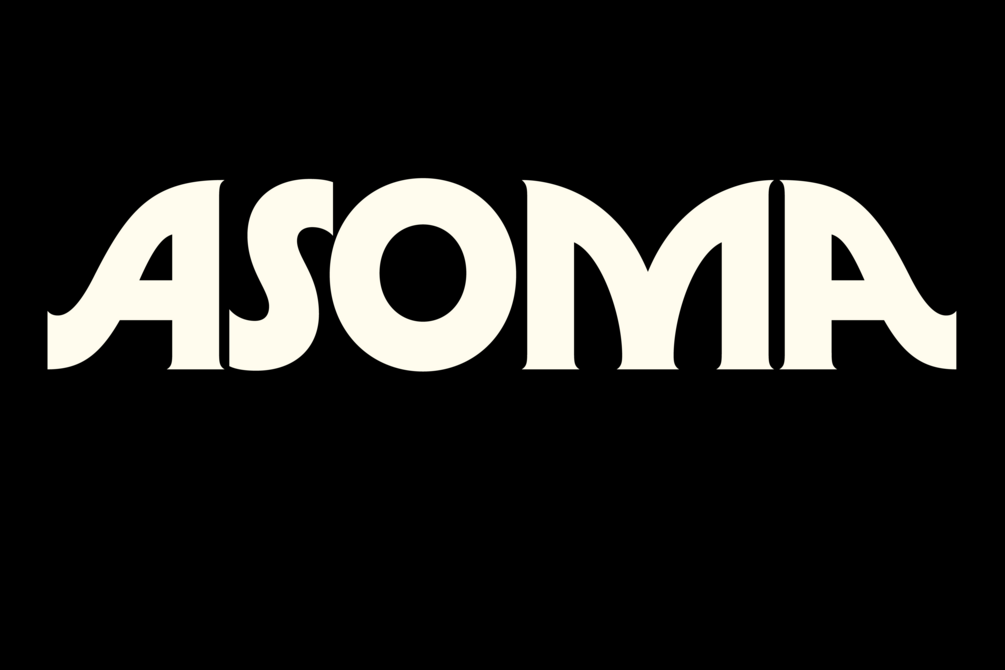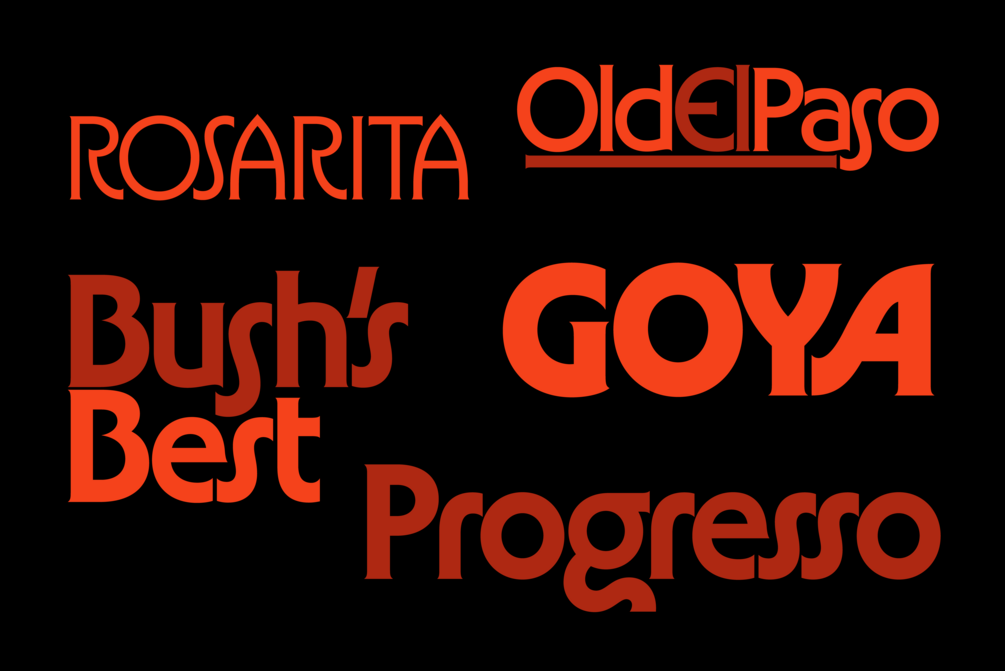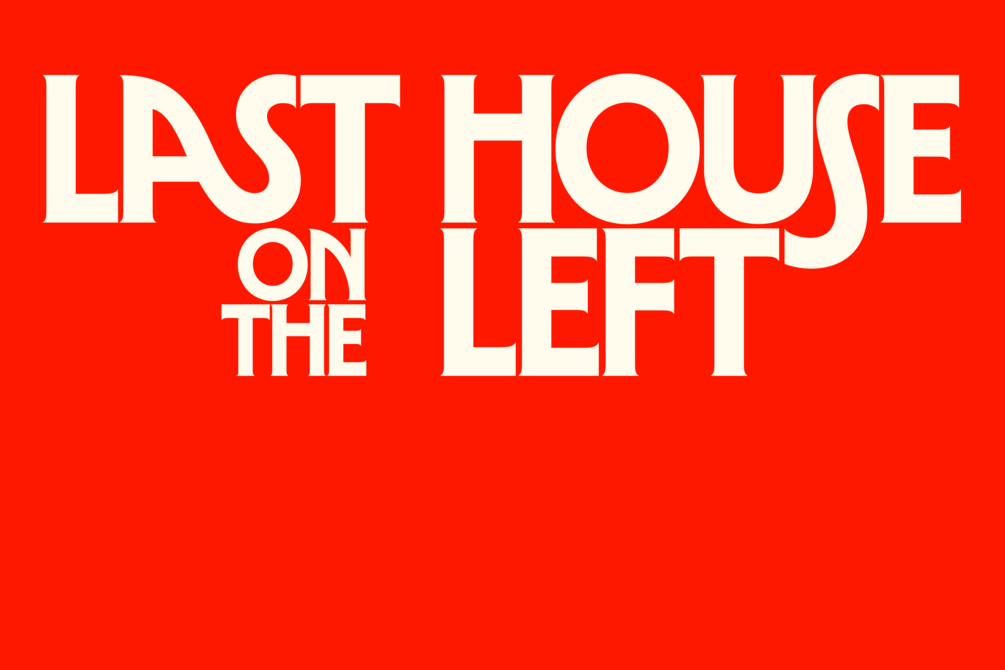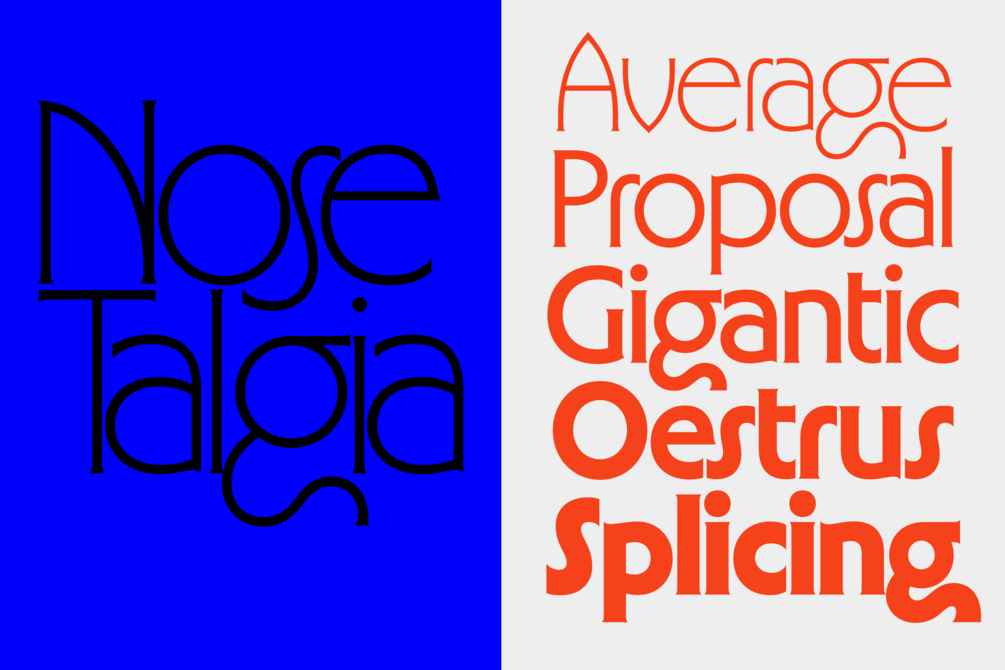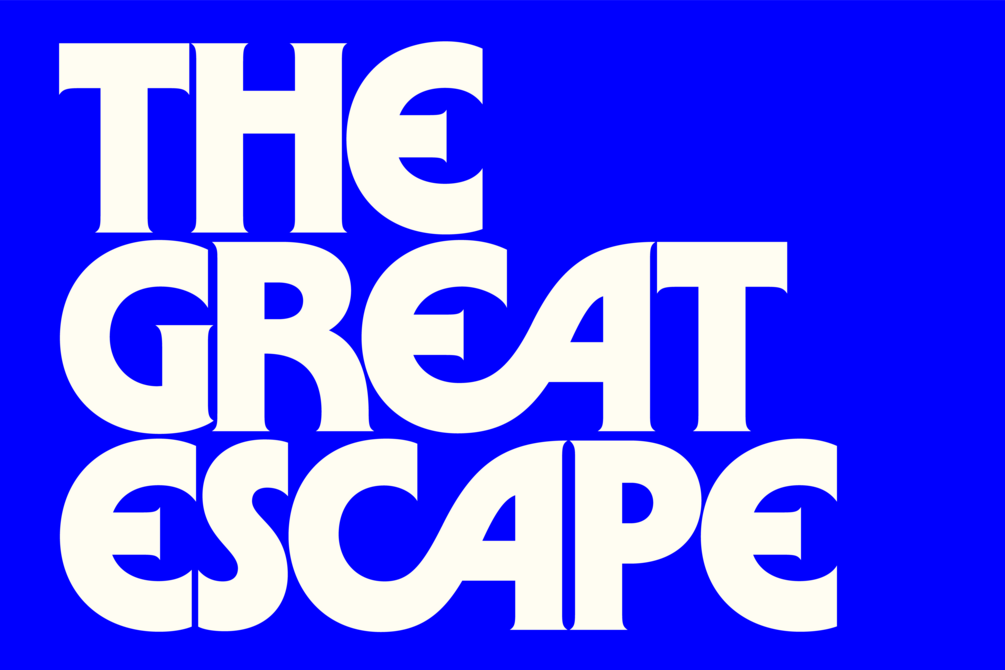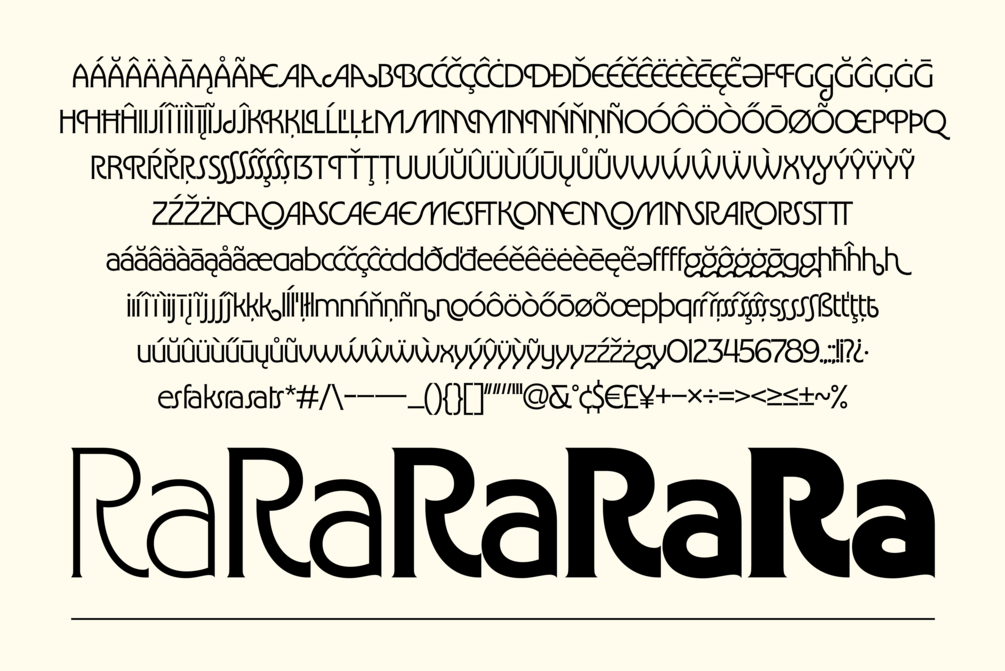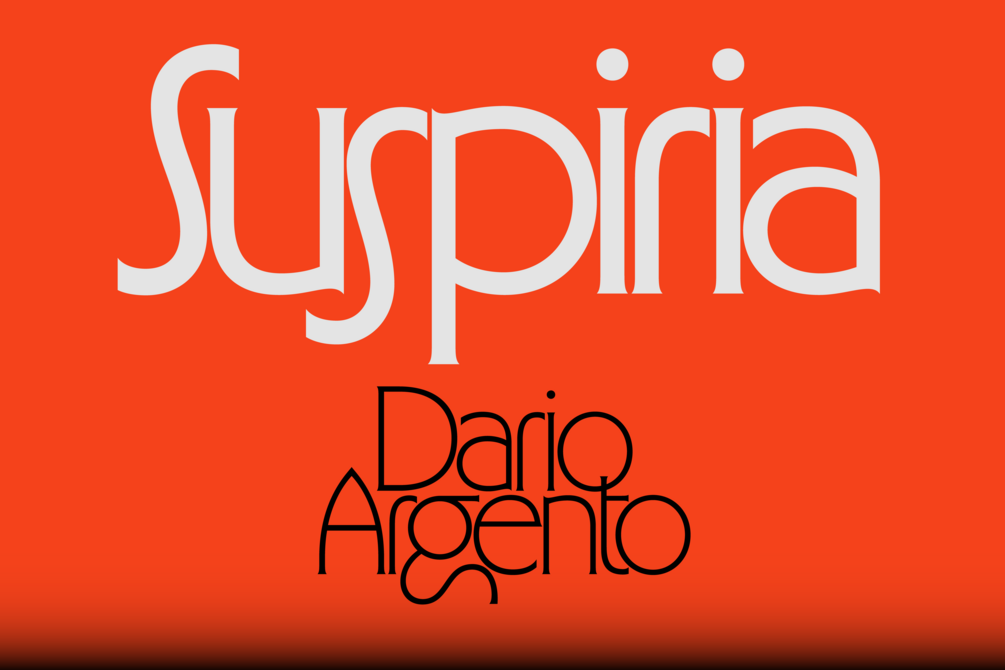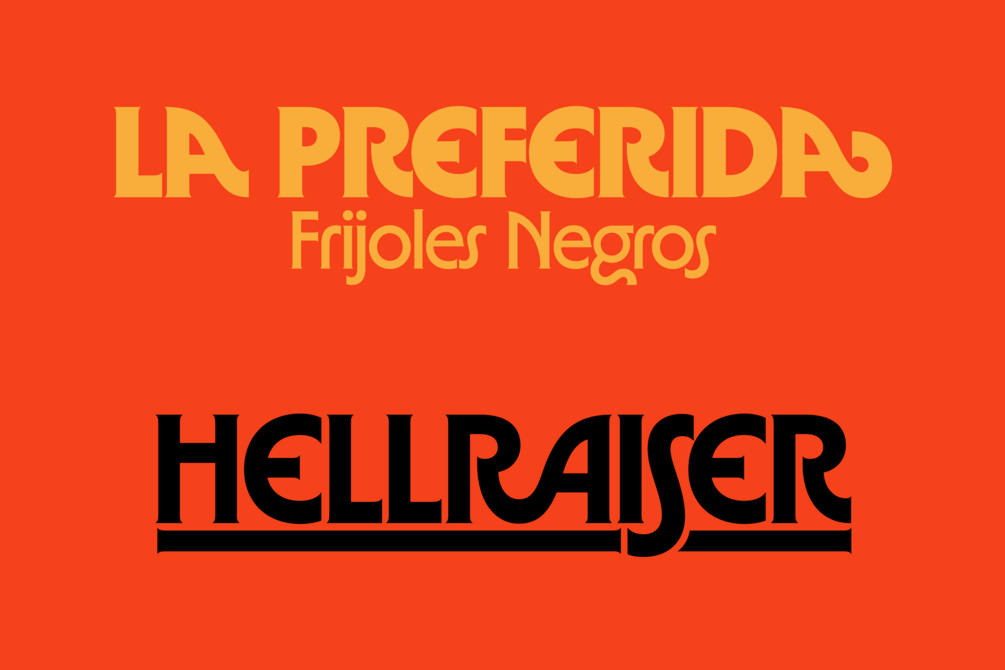
Asoma
Asoma aims to revive the sense of wonder and mystery of 1970s monoweight typefaces such as ITC Busorama, ITC Serif Gothic, and Marvin. Loosely inspired by its predecessors, Asoma riffs on aesthetics of the past, embedding new shapes and ideas with an offbeat sense of nostalgia. A plethora of ligatures gives you the option to heavily customize headlines, titles and logotypes. Additionally, Asoma includes a full upper and lowercase character set, lining figures, math characters, punctuation, 5 distinct weights and support for Western European, Central European, South Eastern European and South American scripts.
Short for asomatic, Asoma speaks with a voice that is somewhat otherworldly, a step away from the physical realm and existing in a more transcendental space. This makes Asoma a great option for horror film titles. For some reason, it also works surprisingly well on packaging for black beans. At heavier weights, Asoma communicates a nostalgic feeling, emulating the design of the 1970s. Asoma thin offers a more subdued feel, perfect for the contemporary design space.
Extended Latin A
5 Weights